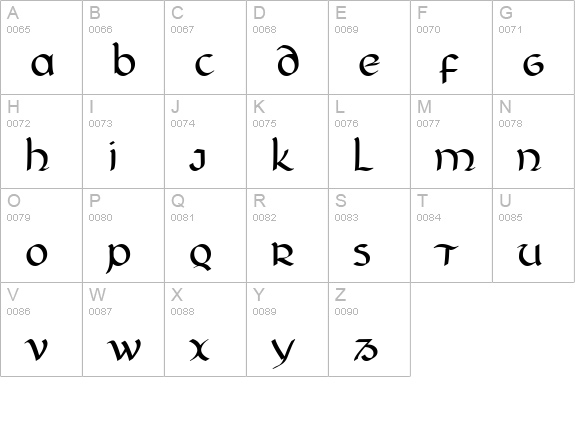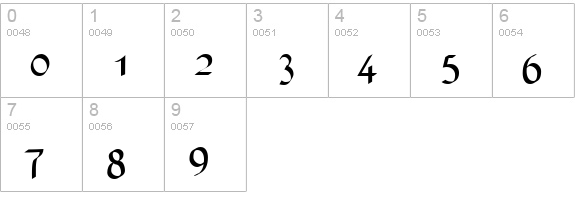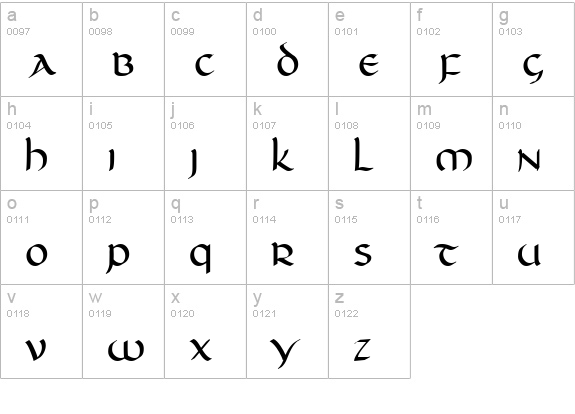
Unikled Bold Font Details
Unikled Bold is a strong, high-contrast variant in the Unikled typeface family \xE2\x80\x94 well suited to headlines, attention-grabbing titles, and strong calls-to-action.
Unikled Bold font is a stunning display typeface that exudes power and confidence. Its bold and robust letterforms command attention and make a strong visual impact. With its thick strokes and sharp edges, Unikled Bold font is perfect for headlines, titles, and logos that need to make a bold statement. What sets Unikled Bold font apart is its unique combination of strength and elegance. The careful balance of thick and thin lines creates a harmonious and captivating design. Every letter is meticulously crafted to ensure legibility and readability, even at smaller sizes. This versatile font is suitable for a wide range of design projects. Whether you're designing a poster, a magazine cover, or a website, Unikled Bold font will elevate your design and give it a touch of sophistication. One of the best features of Unikled Bold font is that it is free to download. Yes, you read that right! This incredible font is freely available at FontsMarket.com. You can easily access and download it to enhance your creative projects without any cost. So why wait? Download Unikled Bold font today and add a touch of boldness and elegance to your designs. It's time to make a lasting impression with this remarkable typeface.